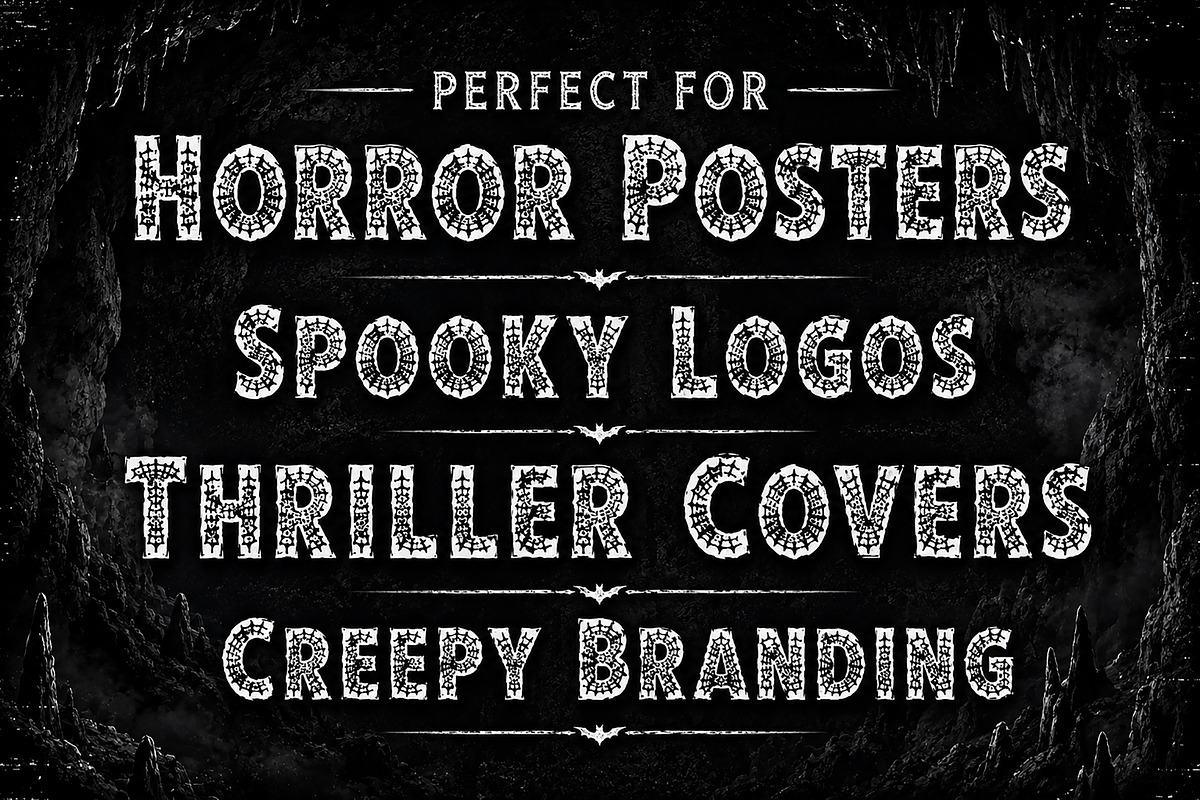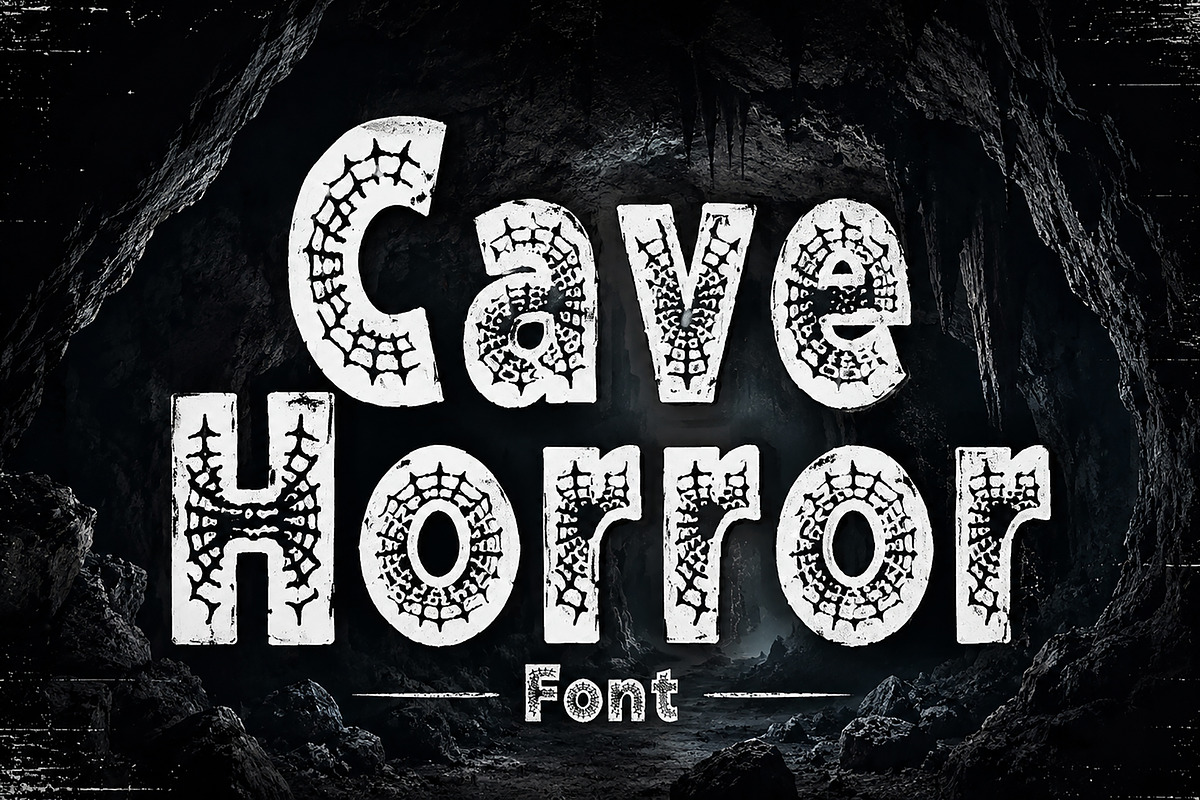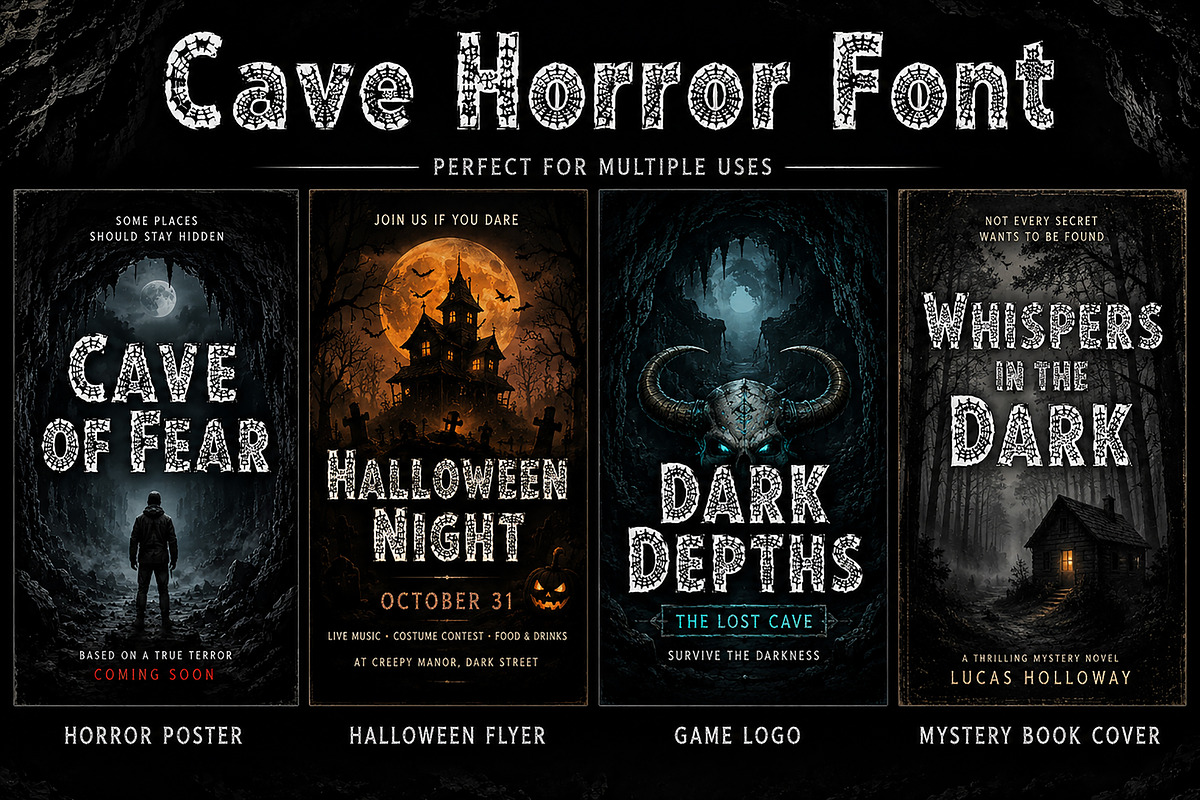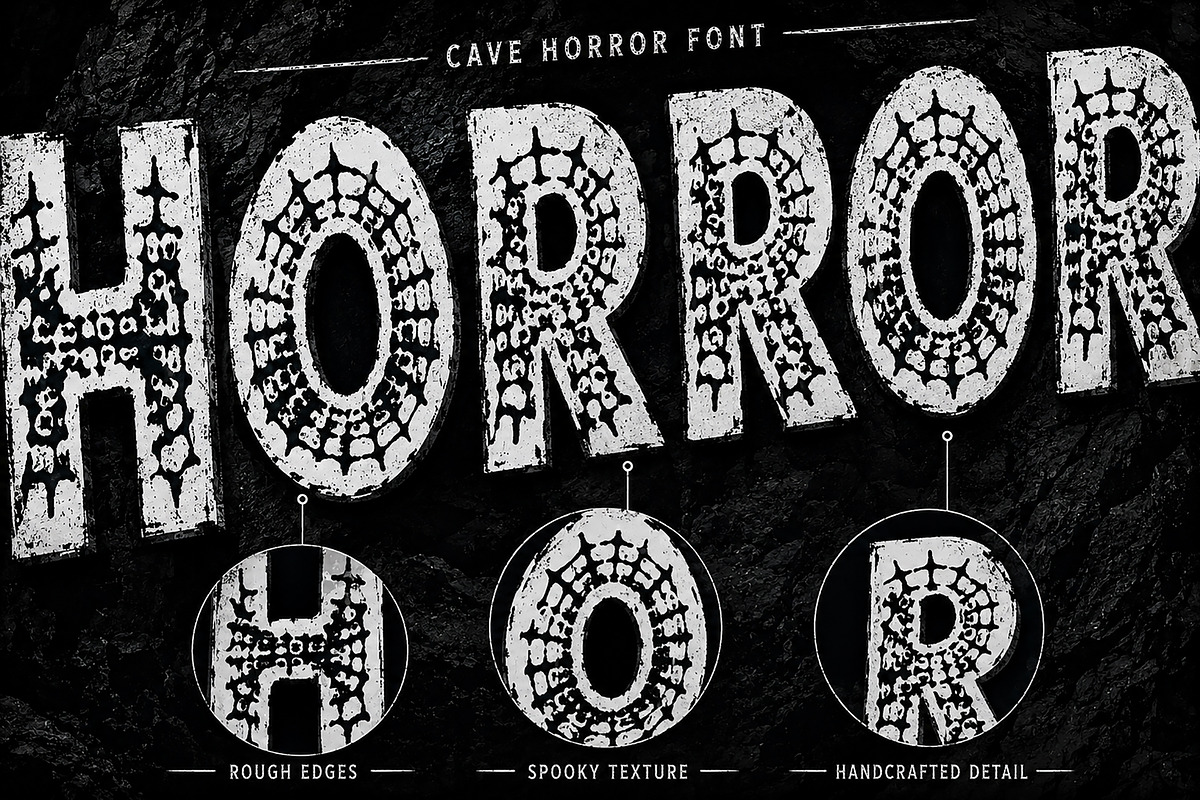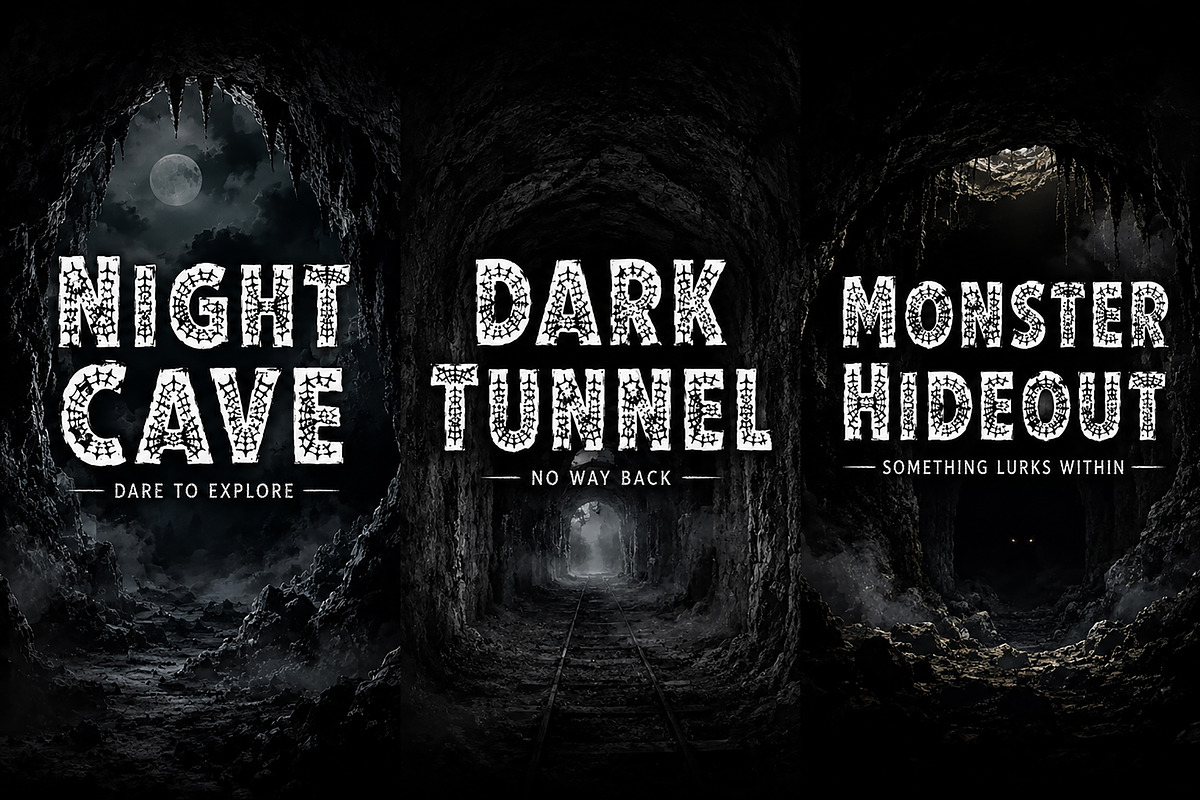
Cave Horror
Cave Horror – Creepy Horror Display Font
Cave Horror is a bold, handcrafted horror display font featuring cracked, distressed textures inspired by abandoned caves, ancient stone walls, and eerie underground mysteries. Every letter is designed with unique rough details that instantly create a dark, creepy, and suspenseful atmosphere.
Perfect for horror-themed branding, Halloween projects, thriller movie titles, game logos, spooky posters, book covers, YouTube thumbnails, haunted attraction promotions, escape room graphics, and any project that demands a chilling visual impact.
Its handcrafted distressed appearance gives every design an authentic horror aesthetic while remaining highly readable at large display sizes.
Horror Movie Posters
Halloween Designs
Thriller Book Covers
Haunted House Branding
Horror Game Logos
Escape Room Graphics
YouTube Thumbnails
Event Flyers
T-Shirt Designs
Streaming Graphics
Social Media Promotions
Packaging
Stickers
Album Covers
Whether you're creating a terrifying movie title, a haunted game logo, or a creepy Halloween poster, Cave Horror delivers the perfect spooky personality to your designs.